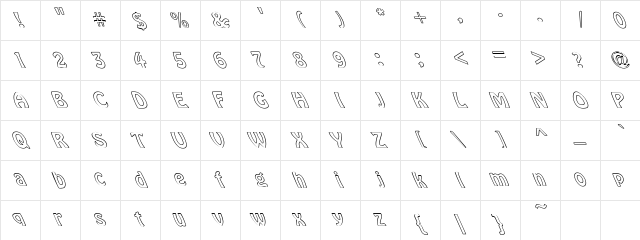
Complete Vagabond Hollow Extreme Lefti Regular glyph index. Displaying only characters natively supported by Vagabond Hollow Extreme Lefti Regular font.
Vagabond Hollow Extreme Lefti is a composed and adaptable typeface that performs quietly and consistently across a wide range of design contexts.